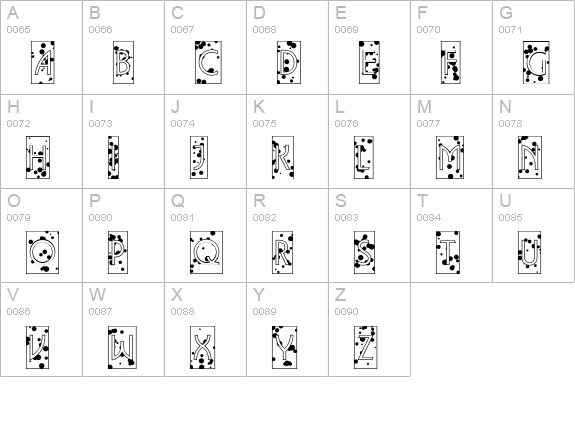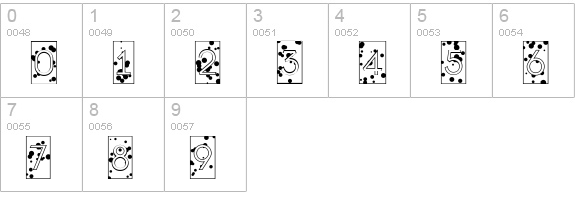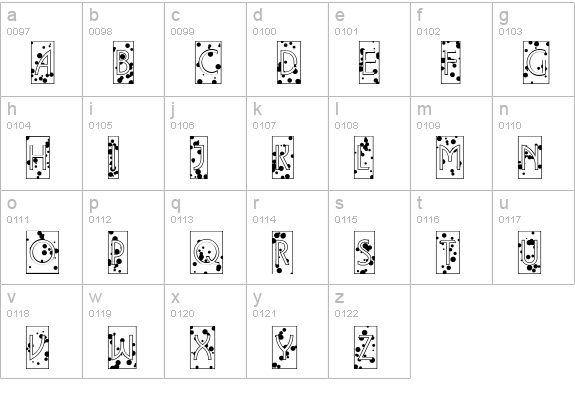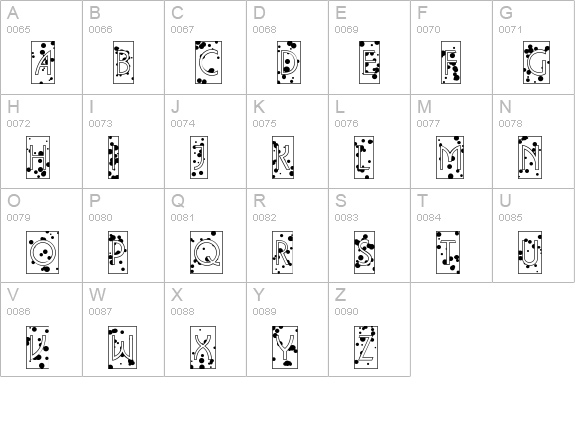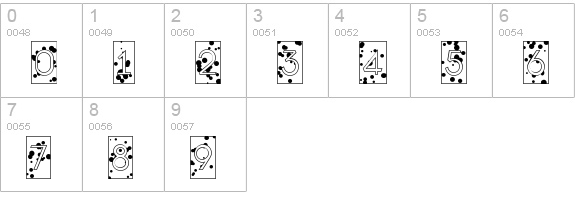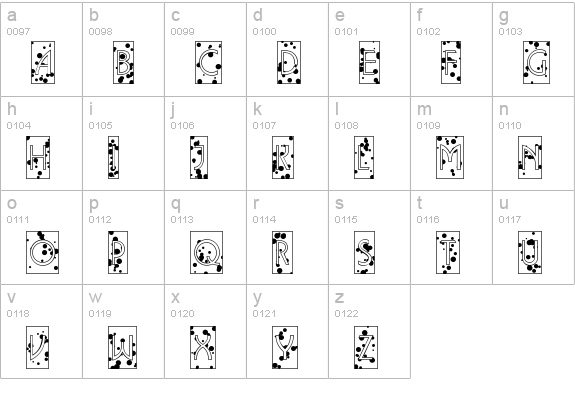
a_LancetCmIkbl Font Details
Introducing the elegant and stylish LancetCmIkbl font, a versatile typeface that exudes sophistication and charm. Its delicate lines and refined curves give any text a touch of class and elegance. Perfect for a wide range of design projects, from logos to invitations, this font is sure to make a statement. The LancetCmIkbl font is not only visually appealing, but also highly readable, making it a great choice for both print and digital designs. Whether you're working on a branding project or creating a beautiful wedding invitation, this font is sure to elevate your design to the next level. Best of all, LancetCmIkbl is completely free to download at FontsMarket.com. So why wait? Add this stunning font to your collection today and take your designs to new heights of sophistication and style.